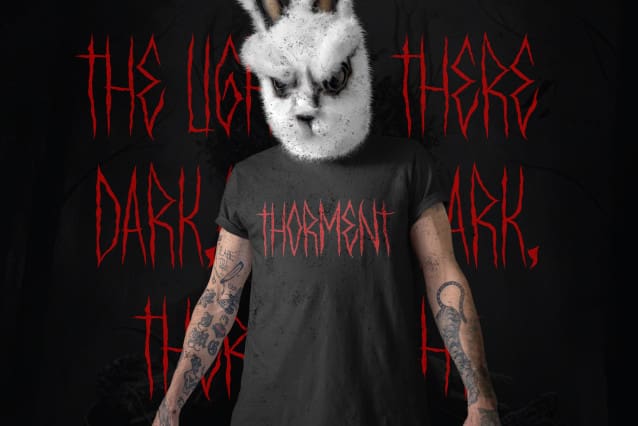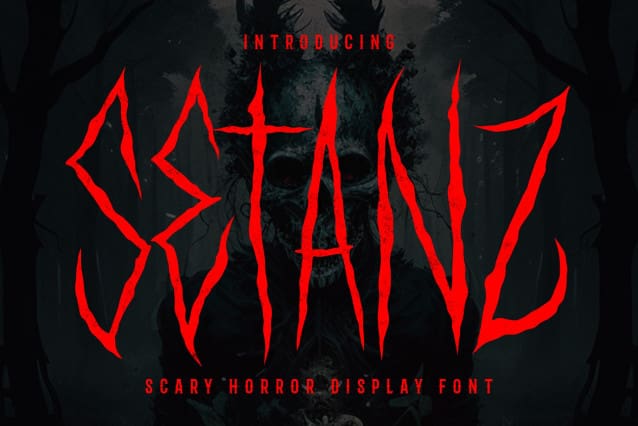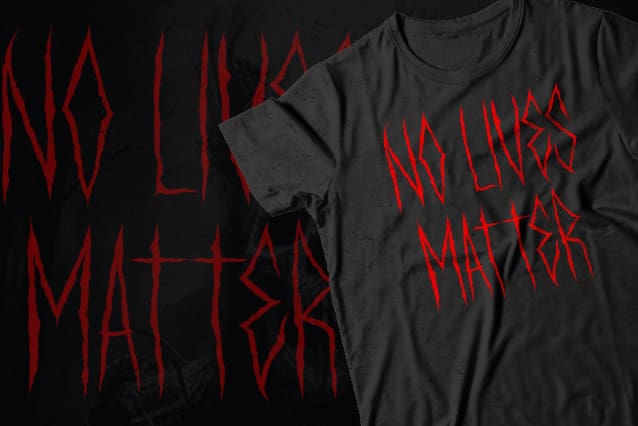
Setanz Black Horror Font
Setanz Black Horror Font– a font that delves into the depths of darkness and horror, perfect for capturing the chilling essence of the supernatural. With SETANZ, your text takes on an eerie and spine-tingling appearance that sends shivers down the reader’s spine.
Each letter of SETANZ is meticulously crafted to exude an air of malevolence and mystery. The jagged edges, twisted contours, and haunting details come together to create a truly sinister aesthetic. Whether you’re designing Halloween-themed graphics, horror movie posters, or gothic-themed merchandise, SETANZ will leave a lasting impression on your audience.